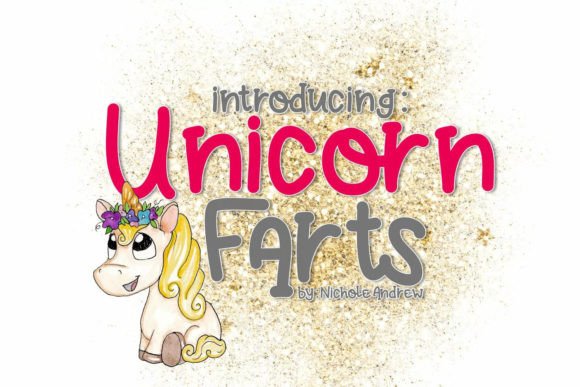
Unleash your creativity with Unicorn Farts, the ultimate script font that will take your projects to a whole new level of whimsy and charm. Created by the talented NicholeAndrew, this font is designed to bring joy and playfulness to every piece of work it graces.
With its fun and handwritten style, Unicorn Farts captures the essence of carefree imagination. Its thick lines make it ideal for cutting machines, allowing you to effortlessly bring your designs to life. Whether you're crafting greeting cards, designing logos, or personalizing water bottles, Unicorn Farts will add a touch of magic to every project.
Imagine the delight on your loved ones' faces when they receive a beautifully crafted card adorned with Unicorn Farts. The unique charm of this font will make your message stand out and leave a lasting impression. From birthday wishes to heartfelt thank you notes, Unicorn Farts ensures your words are as captivating as the font itself.
But it doesn't stop there! Unicorn Farts is also perfect for adding a touch of whimsy to your digital designs. Create eye-catching social media posts, captivating blog headers, or stunning website banners that will instantly grab attention. With Unicorn Farts, you can effortlessly infuse your online presence with a sense of fun and creativity.
The versatility of Unicorn Farts knows no bounds. Its captivating style is not limited to English papers alone, making it perfect for a wide range of projects. Let your imagination run wild as you explore the endless possibilities this font offers. From quirky t-shirt designs to enchanting party invitations, Unicorn Farts is your secret weapon for creating memorable and impactful visuals.
Remember, Unicorn Farts is not just a font, it's a gateway to a world of creativity and imagination. Don't miss out on this opportunity to elevate your designs and leave a lasting impression on your audience. Unleash the magic of Unicorn Farts and let your imagination take flight!